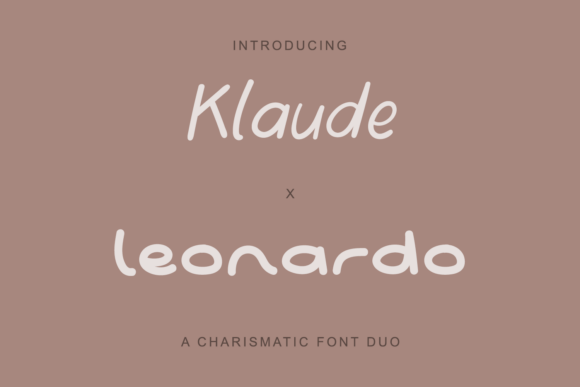
Bring Your Designs to Life with the Charming Klaude X Leonardo Font
Have you ever sat at your desk, staring at a blank page, waiting for inspiration to strike? For designers, this moment is all too familiar. But what if we told you that the perfect spark is just a font away? Introducing the Klaude and Leonardo font duo, a harmonious blend of modern and vintage styles that will breathe new life into your projects.
As a designer, you’re always on the lookout for fonts that capture the essence of your brand and connect with your audience on a deeper level. That’s where Klaude X Leonardo Font comes in – a lovingly handcrafted pair of fonts that exude individuality and expressiveness. With Klaude and Leonardo, you’ll be able to create eye-catching design elements that evoke playfulness and elegance in equal measure.
Klaude X Leonardo Font Key Features
- Font Family: Klaude X Leonardo
- Unique Characteristics: Klaude X Leonardo is a modern script font with elegant and sophisticated feel, ideal for creative and artistic projects
- Number of Glyphs: Over 600 glyphs, including Latin, Cyrillic, and Greek alphabets, as well as various symbols and punctuation marks
Klaude X Leonardo Font Review
Overall, I’d say Klaude X Leonardo is a decent font with some great features. ✨
- Highly legible even at small font sizes.
- Features a nice balance between modern and classic elements.
- Supports a wide range of languages, making it a great choice for global projects.
- Includes various weights and styles, offering plenty of flexibility for designers.
However, there are a few limitations that might make it less appealing to some users. ⚠️
- The font’s design can feel a bit generic at times, lacking a unique personality.
- Some characters may appear slightly distorted or uneven, which can affect overall text readability.
- The font’s weight and style variations can sometimes feel inconsistent or mismatched.
Despite these limitations, I think Klaude X Leonardo is a solid choice for designers who want a clean, easy-to-read font. While it may not stand out from the crowd, it’s a reliable option that can get the job done.
Tips for Getting the Most Out of Klaude X Leonardo Font
For best results, use Klaude X Leonardo Font in bold or italic styles to add emphasis.
Combine Klaude X Leonardo Font with other fonts for a unique and creative look.
Use Klaude X Leonardo Font for headings, titles, or emphasis to create a visually appealing design.
Common Use Cases for Klaude X Leonardo Font
Klaude X Leonardo Font is suitable for:
Book titles and author names.
Headings and subheadings in designs.
Em